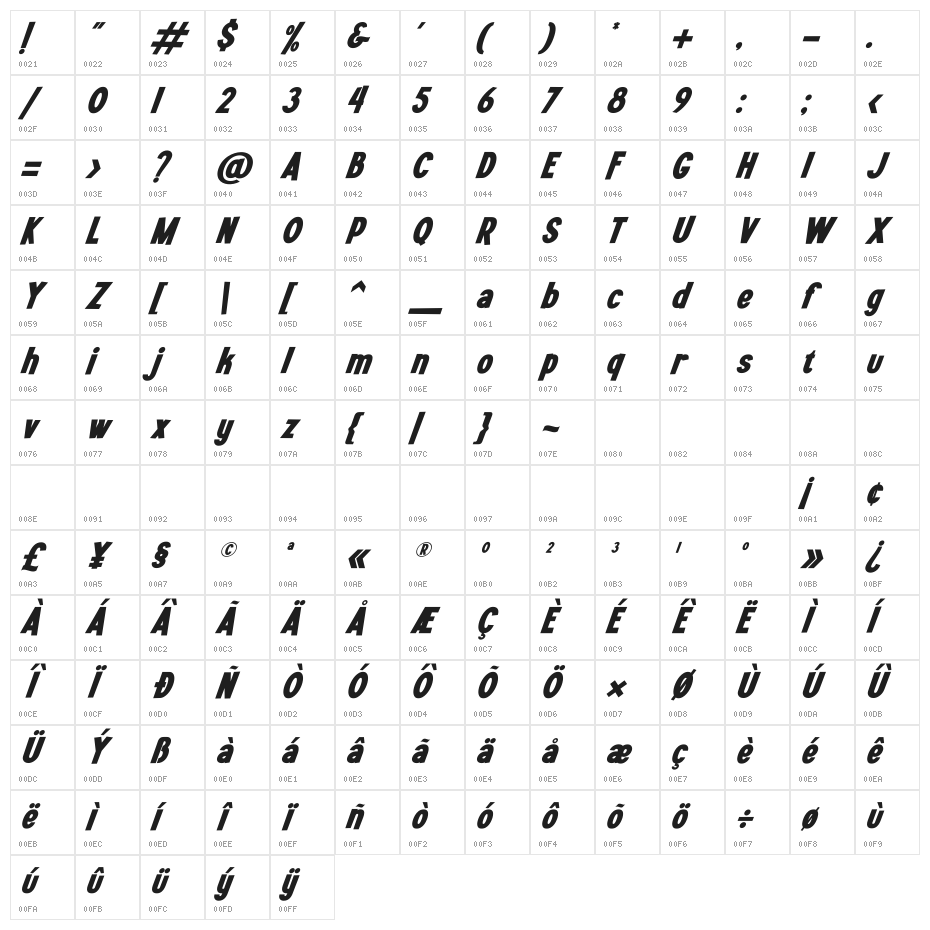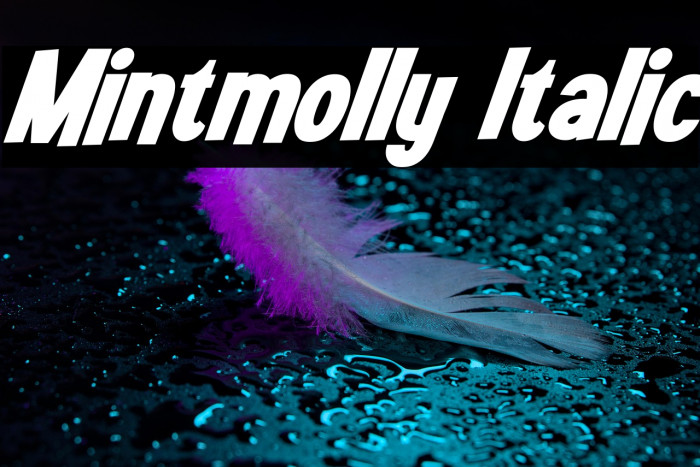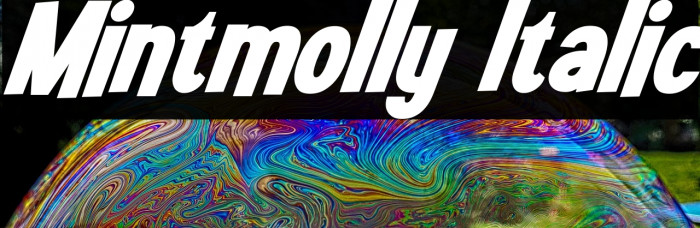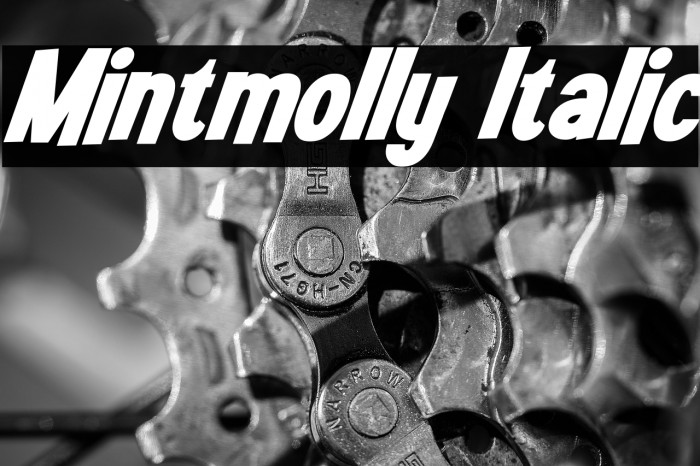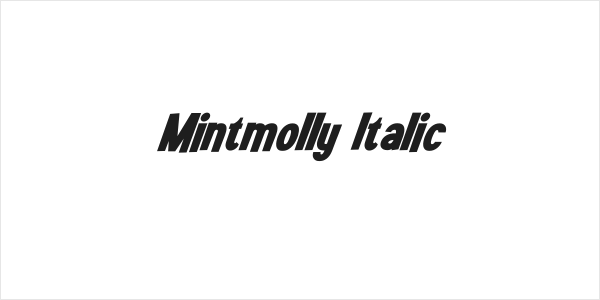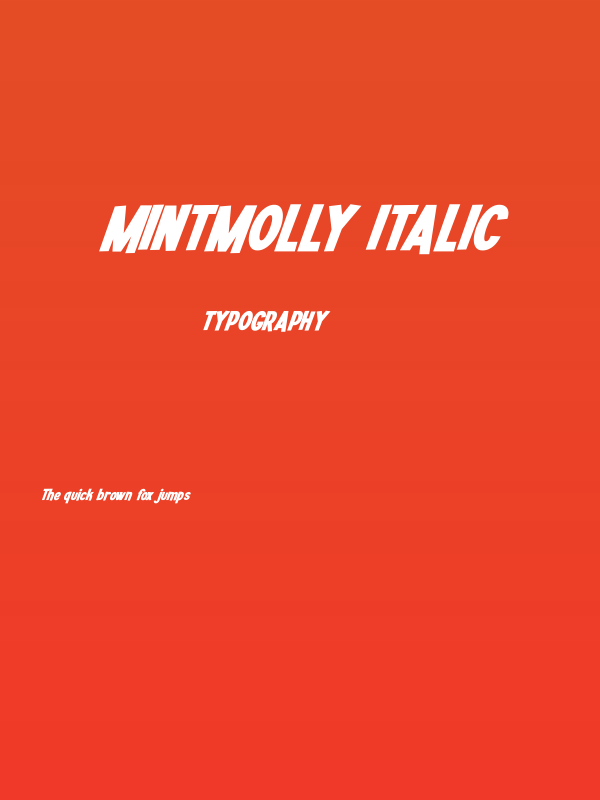
Mintmolly Italic Font
Mintmolly Italic Description
This font features a bold and dynamic italic style, characterized by its strong slant and thick strokes. The uppercase and lowercase letters maintain a consistent weight, creating a sense of uniformity and strength. The numerals are equally bold, ensuring readability and impact. Special characters are designed with the same boldness, making them stand out effectively. The overall appearance is modern and assertive, suitable for making a statement in any design project.
| Proposed Projects | Ideal for headlines, posters, branding, and advertising where a bold statement is needed. |